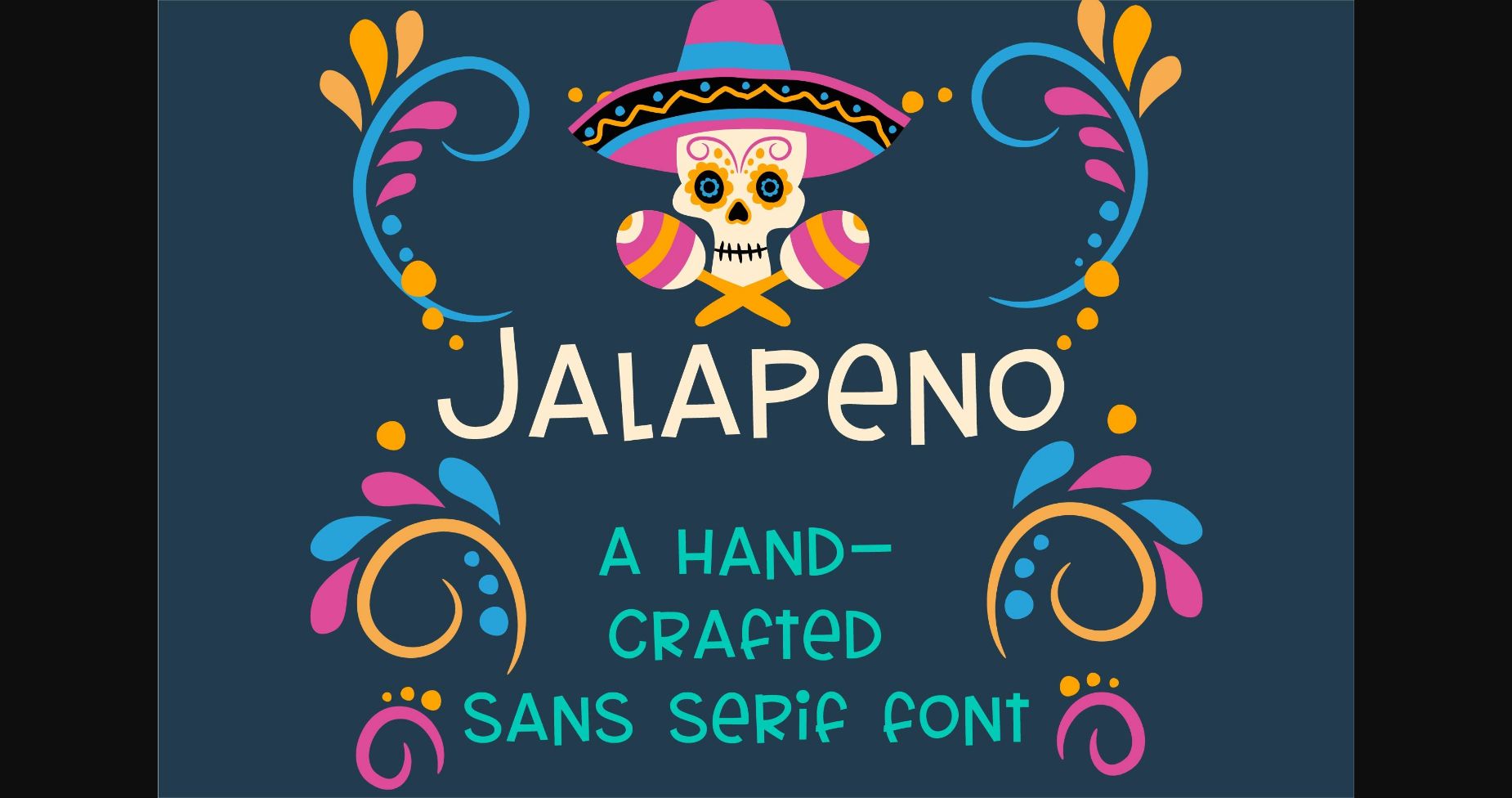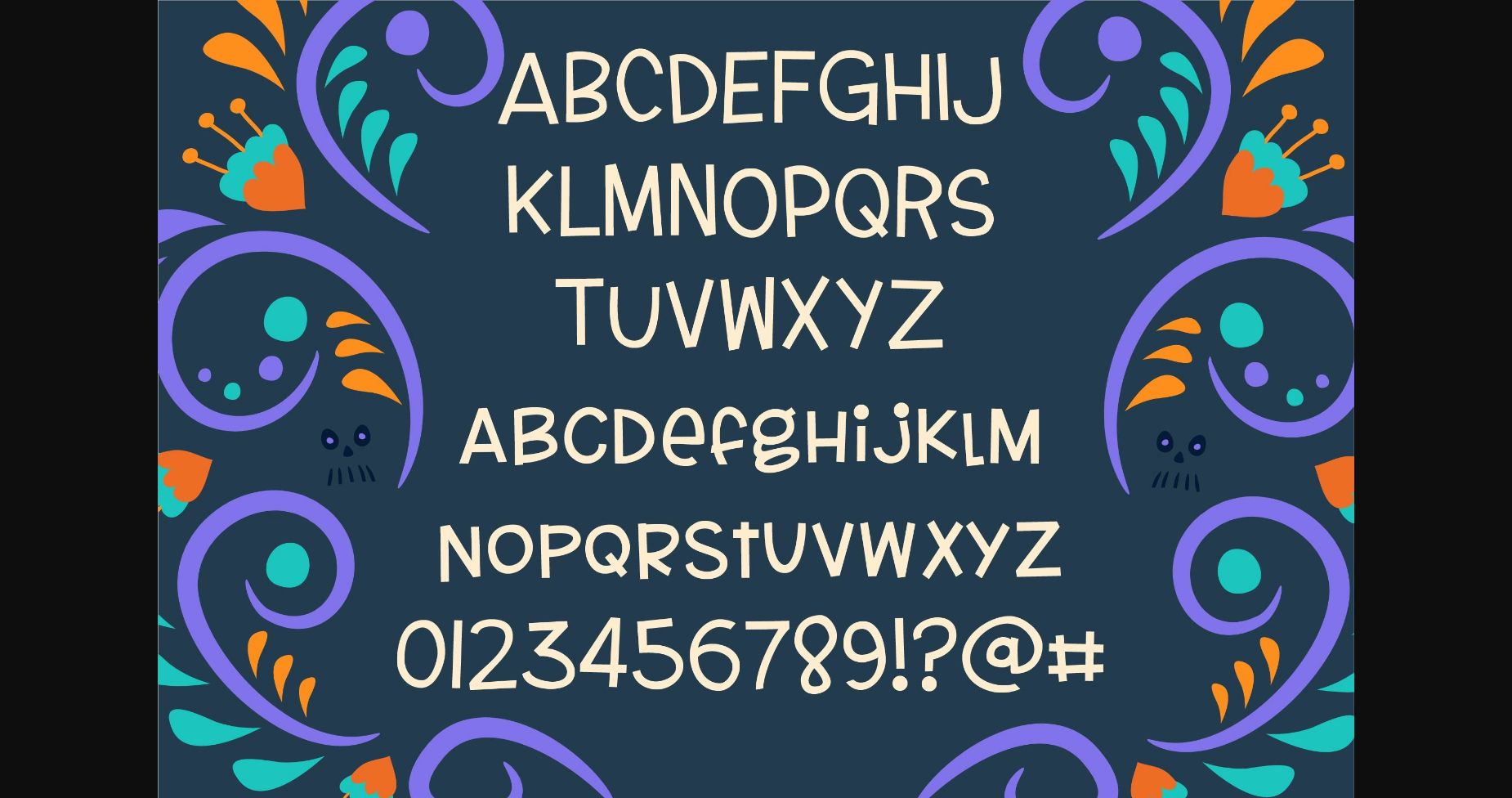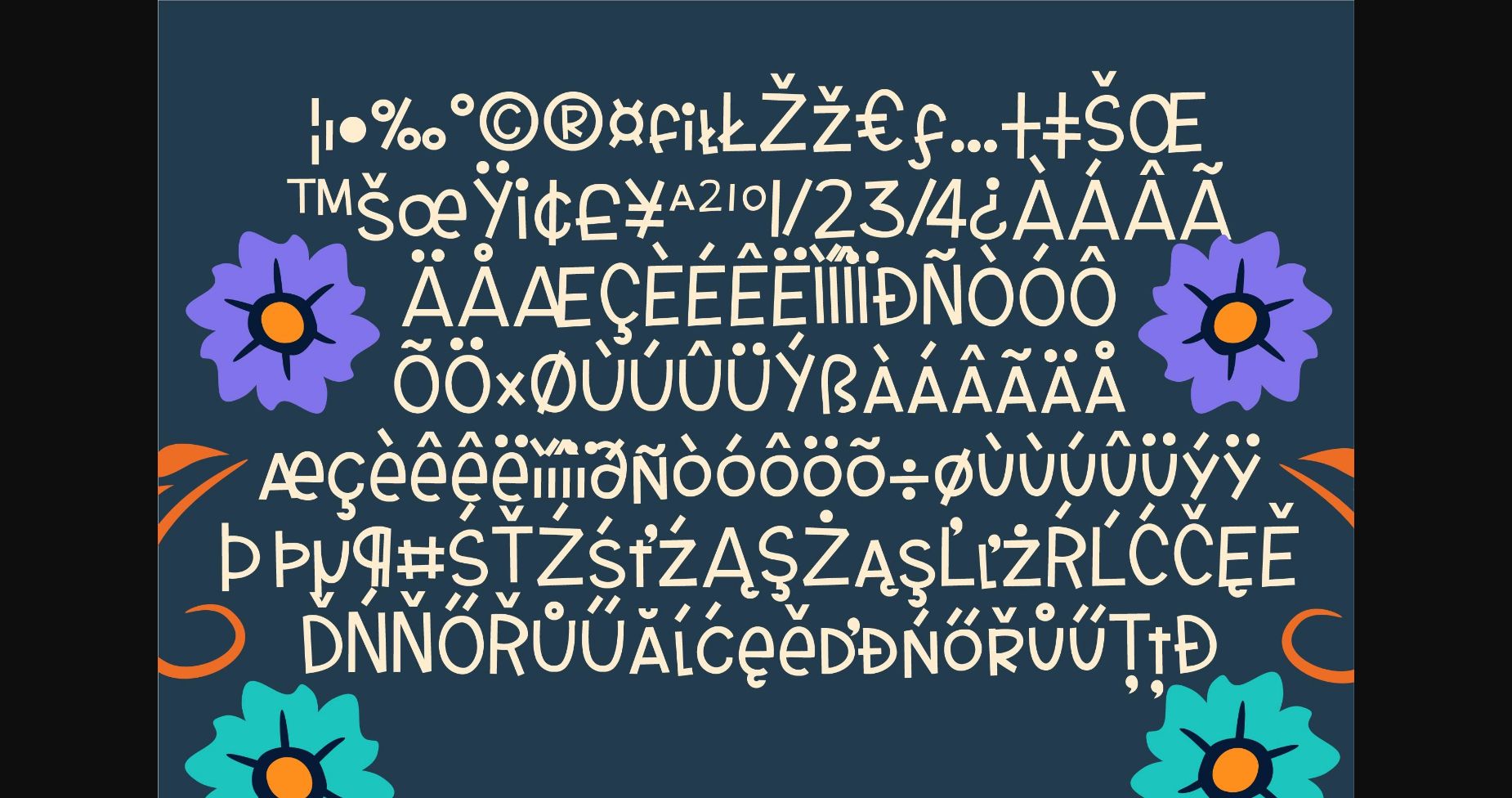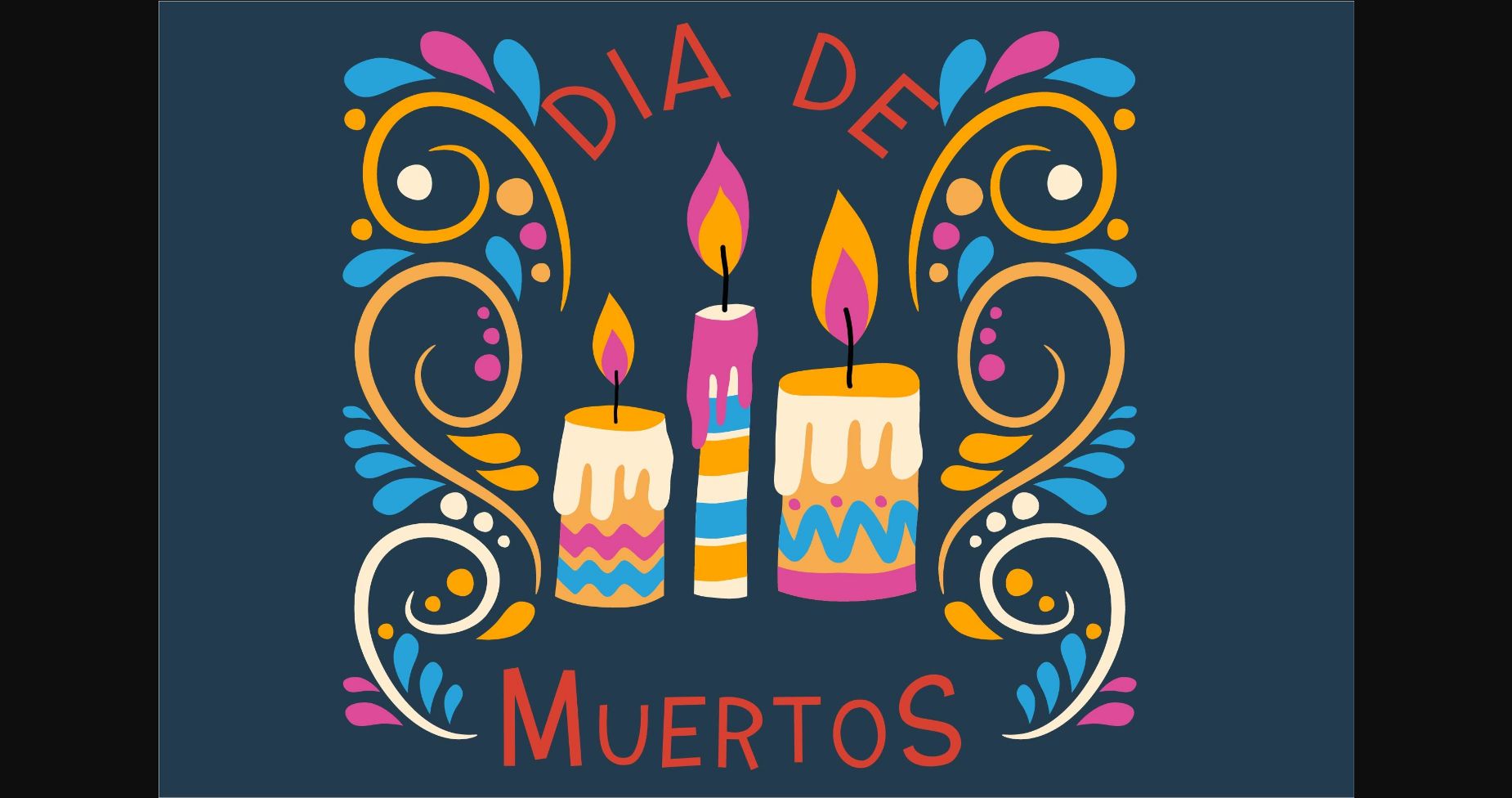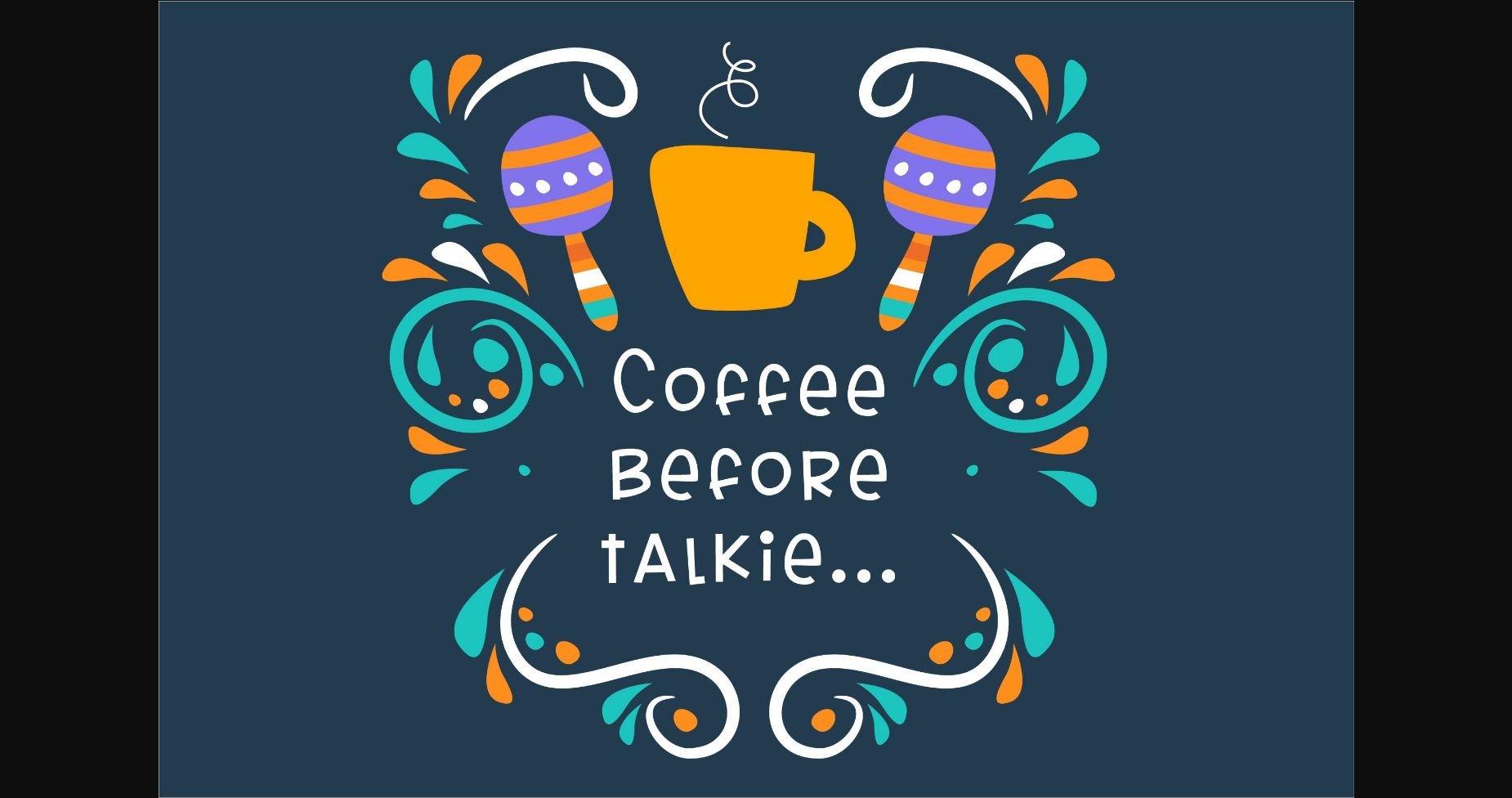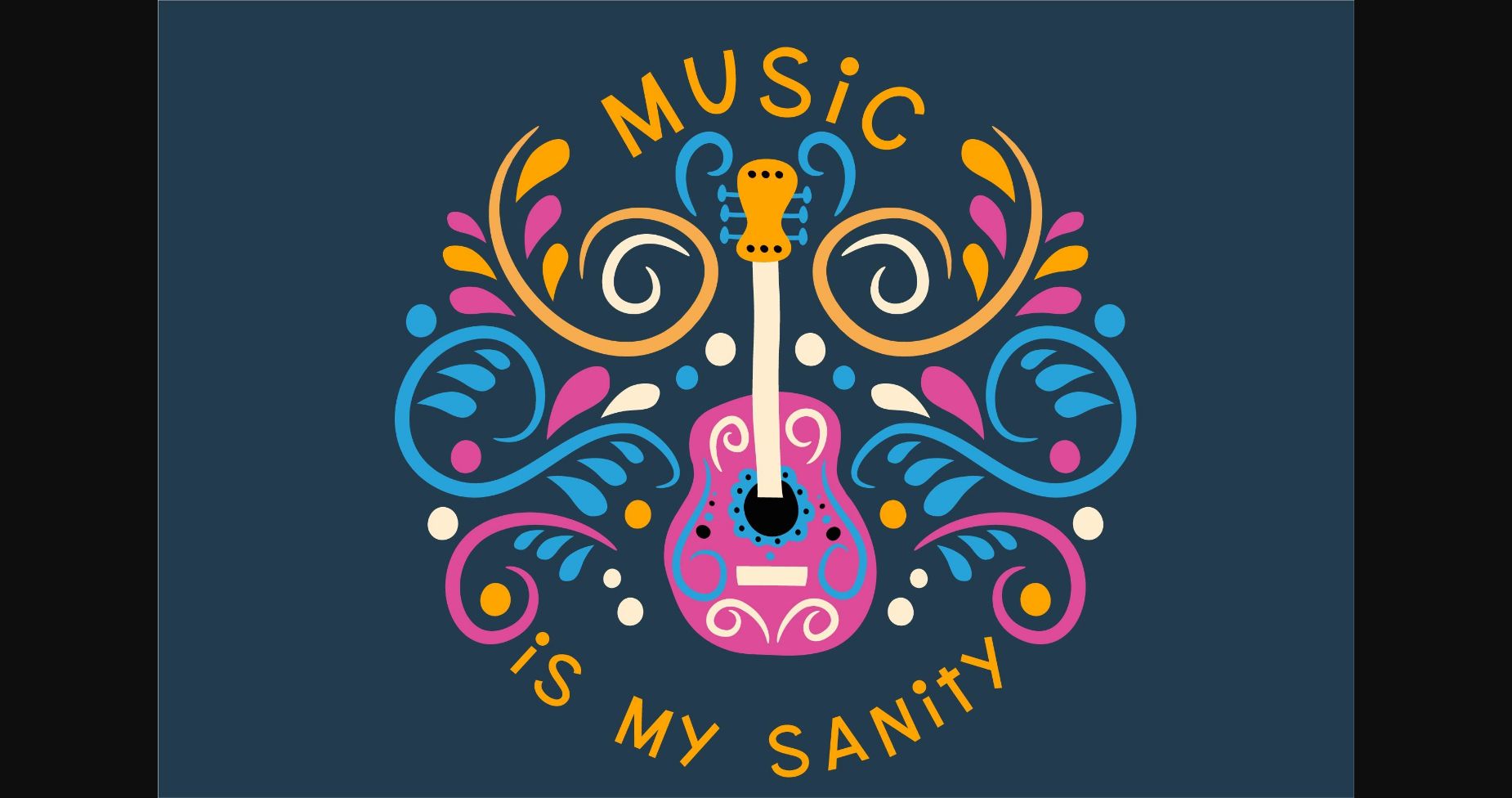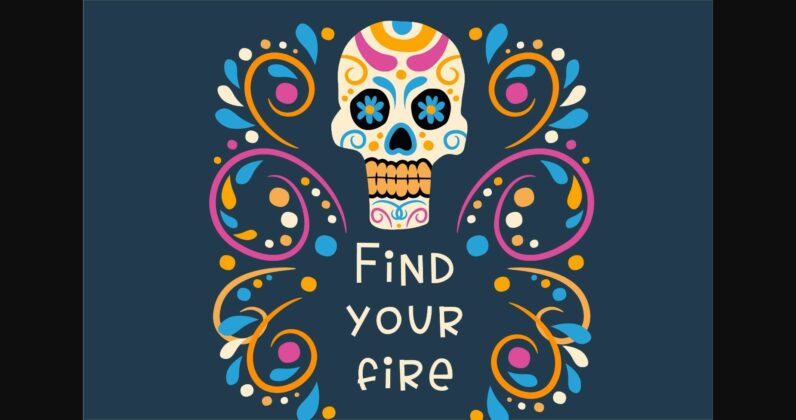
HomeSans Serif FontsJalapeno Font Sans Serif Fonts Jalapeno Font FacebookXPinterestWhatsApp 1 of 9 ... Jalapeno Font Poster 2... Jalapeno Font Poster 3... Jalapeno Font Poster 4... Jalapeno Font Poster 5... Jalapeno Font Poster 6... Jalapeno Font Poster 7... Jalapeno Font Poster 8... Jalapeno Font Poster 9... About Jalapeno Font This hand-crafted sans serif is a mix of fun characters with the straight lines of a standard sans serif. It looks fresh and unique. DOWNLOAD NOW People also explored The Saturday Signature Font Minimalist Font Kingstown Font Play Diamond Ring Font Dafone Font Beginner Script Font Hello Font Xerym Font 436 0 TagsJalapeno Font Previous articleSnogville FontNext articleNailhead Nova Font LEAVE A REPLY Cancel reply Comment: Please enter your comment! Name:* Please enter your name here Email:* You have entered an incorrect email address! Please enter your email address here Website: Save my name, email, and website in this browser for the next time I comment. Personal Use Free Cinderella Personal Use Free Read more about this font Adelia Font Personal Use Free Read more about this font Mustica Personal Use Free Read more about this font Spectrashell Personal Use Free Read more about this font BLOG To increase your work productivity, choose the most readable fonts. In today's fast-paced work environment, where digital communication and information consumption are integral to our daily routines, the choice of fonts can significantly impact... Top 7 Google Fonts Alternatives for Faster and Privacy-Friendly Web Design (2025) How to Install and Use Fonts on Windows, macOS, and Web Projects Modern Sans-Serif Fonts That Brands Love in 2025